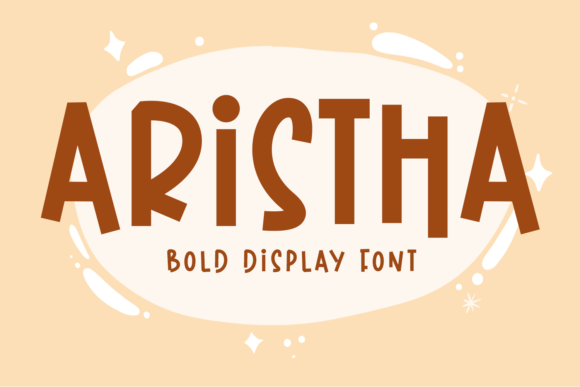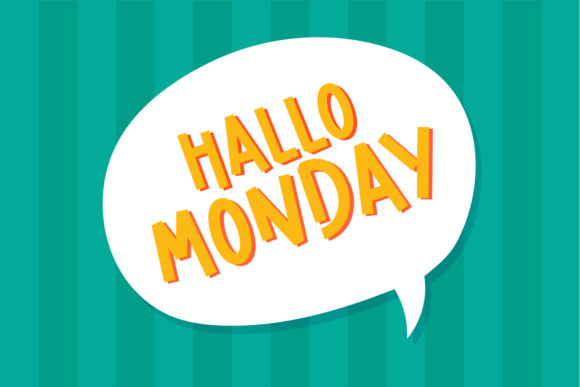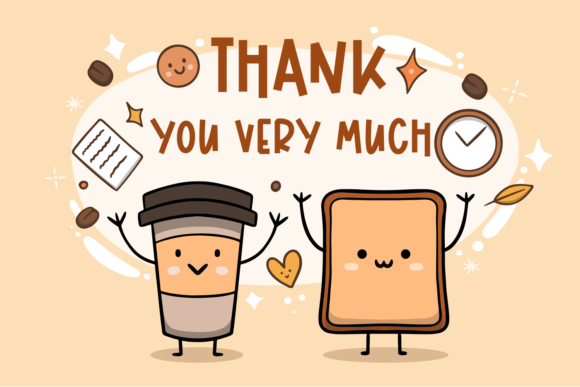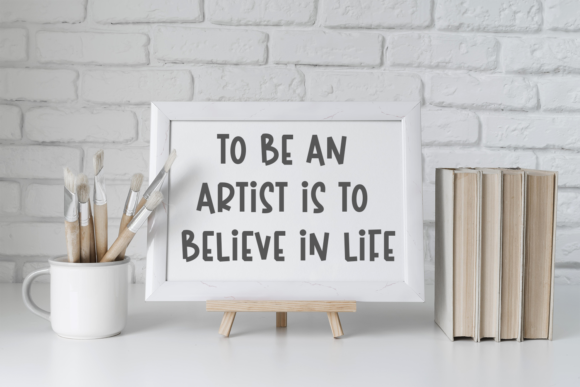
Aristha Font
About Aristha Font
**Aristha** is more than just a font; it’s a fresh and bold display font that brings a vibrant and distinctive look to your designs. Tailored for various purposes, it stands out as an ideal choice for a range of design projects, including Youtube banners, cover logo mockups, wedding invitations, ID cards, and flyers.
Imagine “Aristha” transforming your Youtube banners, where its bold and fresh display captures attention and creates a visually striking presence. Whether you’re showcasing your content or promoting an event, this font adds a touch of modernity and energy.
For logo mockups and branding, “Aristha” becomes a key element, infusing a sense of boldness and freshness into your visual identity. Its unique style ensures that your brand stands out with a contemporary and impactful look.
When it comes to wedding invitations and ID cards, “Aristha” brings a touch of sophistication with its bold yet fresh display. The font adds a modern and elegant flair, making your invitations and identification materials visually appealing.
For flyers and promotional materials, “Aristha” becomes a dynamic choice, ensuring that your message is conveyed with boldness and clarity. The fresh display font injects a sense of energy, making your designs memorable and engaging.
Let “Aristha” be the font that adds a fresh and bold perspective to your design arsenal. Its versatility makes it suitable for a variety of purposes, ensuring that your projects exude a modern and impactful aesthetic.